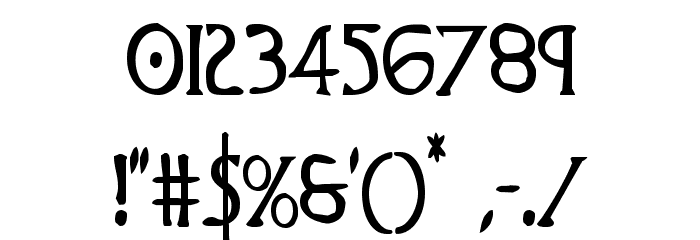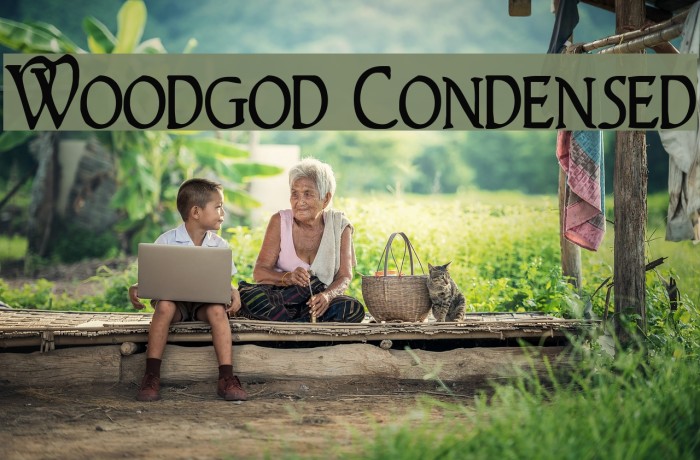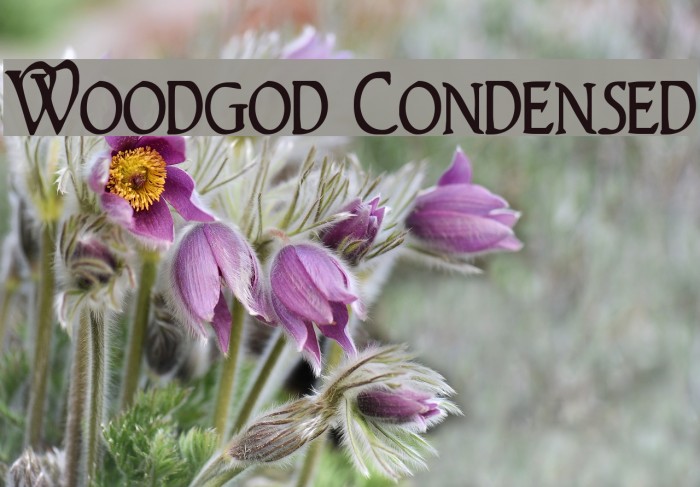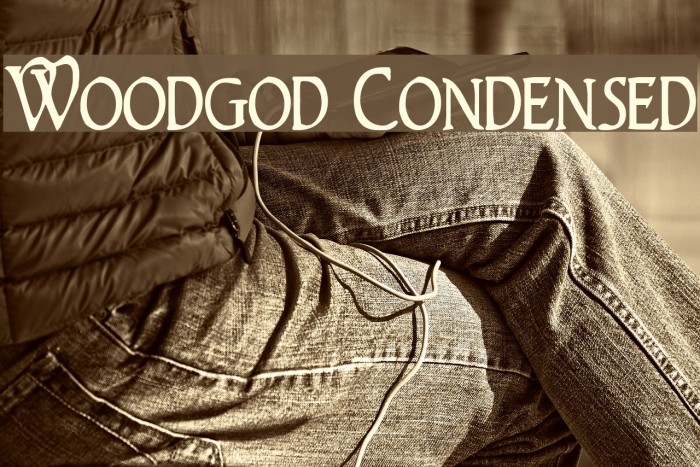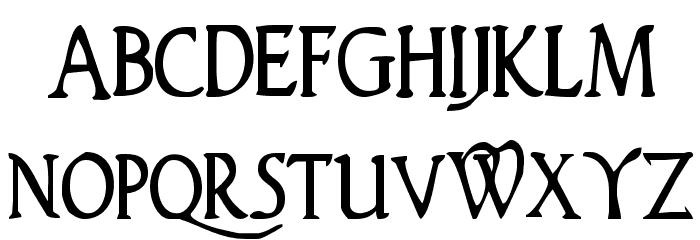
Woodgod Condensed Font
This font features a unique and artistic style with a condensed form, characterized by its flowing, slightly whimsical serifs and a hand-drawn appearance. The uppercase letters exhibit a distinct flair, with some characters incorporating elongated strokes and decorative elements, such as the swooping tail on the 'Q' and the intricate design of the 'W'. The lowercase letters maintain a consistent style, complementing the uppercase with their own subtle curves and embellishments. Numbers are bold and clear, with a slight artistic touch that aligns with the overall theme. Special characters are creatively designed, adding to the font's decorative appeal. This font is ideal for projects that require a touch of elegance and creativity.
A decorative, condensed serif font with artistic and whimsical elements.
• Proposed Projects: Ideal for book covers, posters, invitations, and branding that require a creative and elegant touch.
• Contrast: Medium
• Overall Style: Decorative
• Use Case: Headlines, Logos, Decorative text